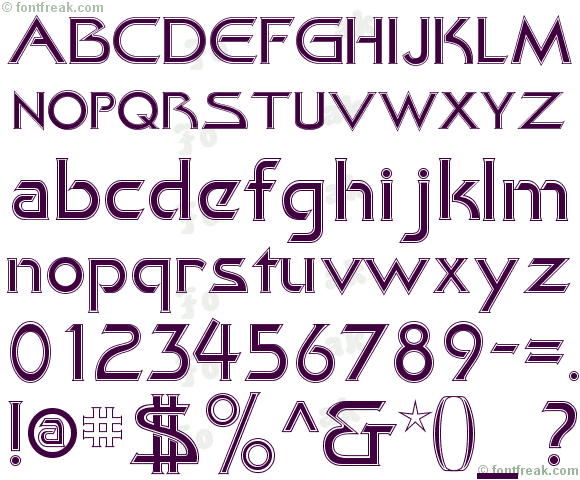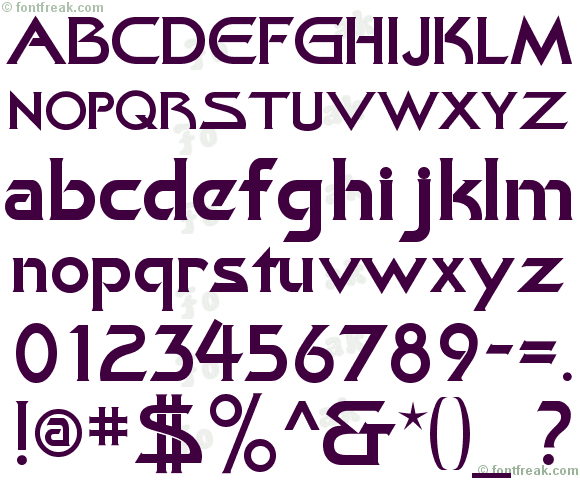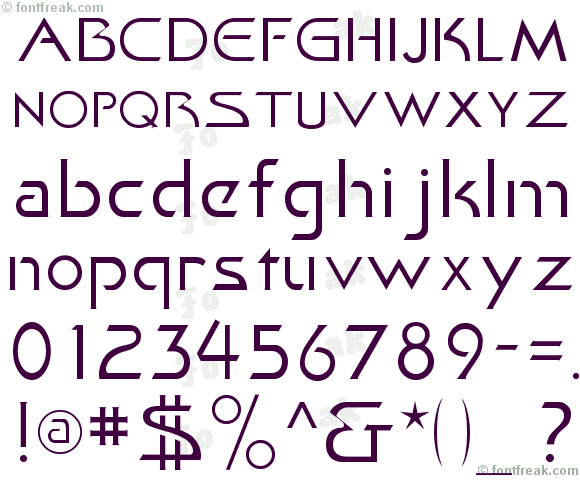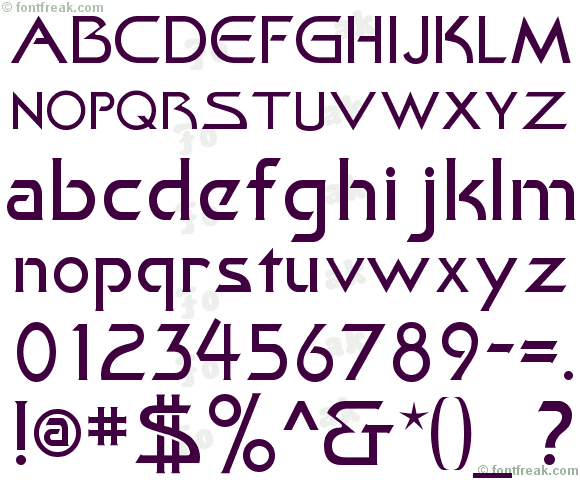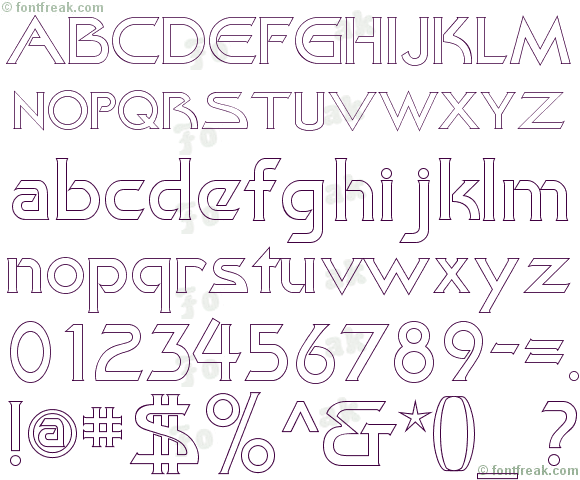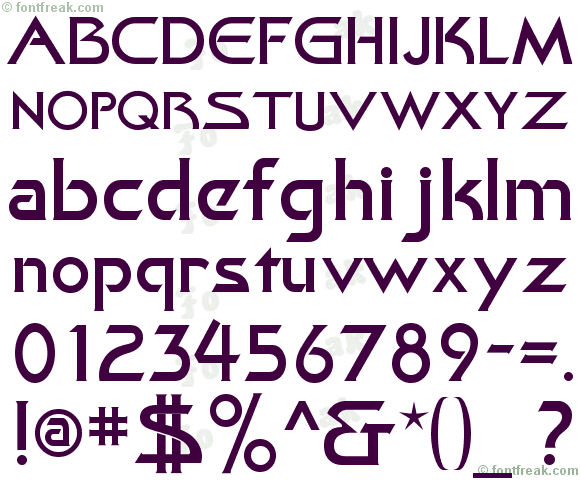
Khan Light
Khan Bold
Khan Outline
Khan AlreadyFilled
Khan
Khan Fill
About Khan
The Khan font, designed by Chris Paveglio in 1996, is a striking display typeface that showcases a unique blend of bold outlines and filled styles. Its design features a strong stroke weight with a uniform contrast, making it eye-catching and impactful. The font's structure is characterized by clean lines and ample spacing, providing clarity and legibility while maintaining a playful aesthetic. This versatility allows the Khan font to stand out in various applications, making it an excellent choice for graphic designers and content creators alike.
Khan is particularly well-suited for use in wedding invitations, where its bold presence can enhance the significance of the occasion. It also shines in movie posters, lending a dramatic flair that captures attention. Restaurant menus benefit from its unique character, providing a memorable branding element that entices diners. Additionally, it can be effectively utilized in promotional materials for local businesses, creating a strong visual identity that resonates with customers.
What sets the Khan font apart is its ability to balance boldness with approachability, making it suitable for a wide range of design contexts. The combination of its playful outlines and filled styles invites creativity while ensuring that messages are delivered clearly. For those searching for a striking typeface, the Khan font free download offers an opportunity to bring a fresh, dynamic element to their designs.